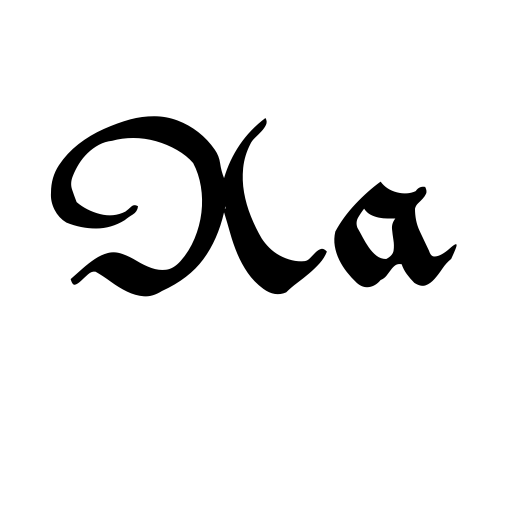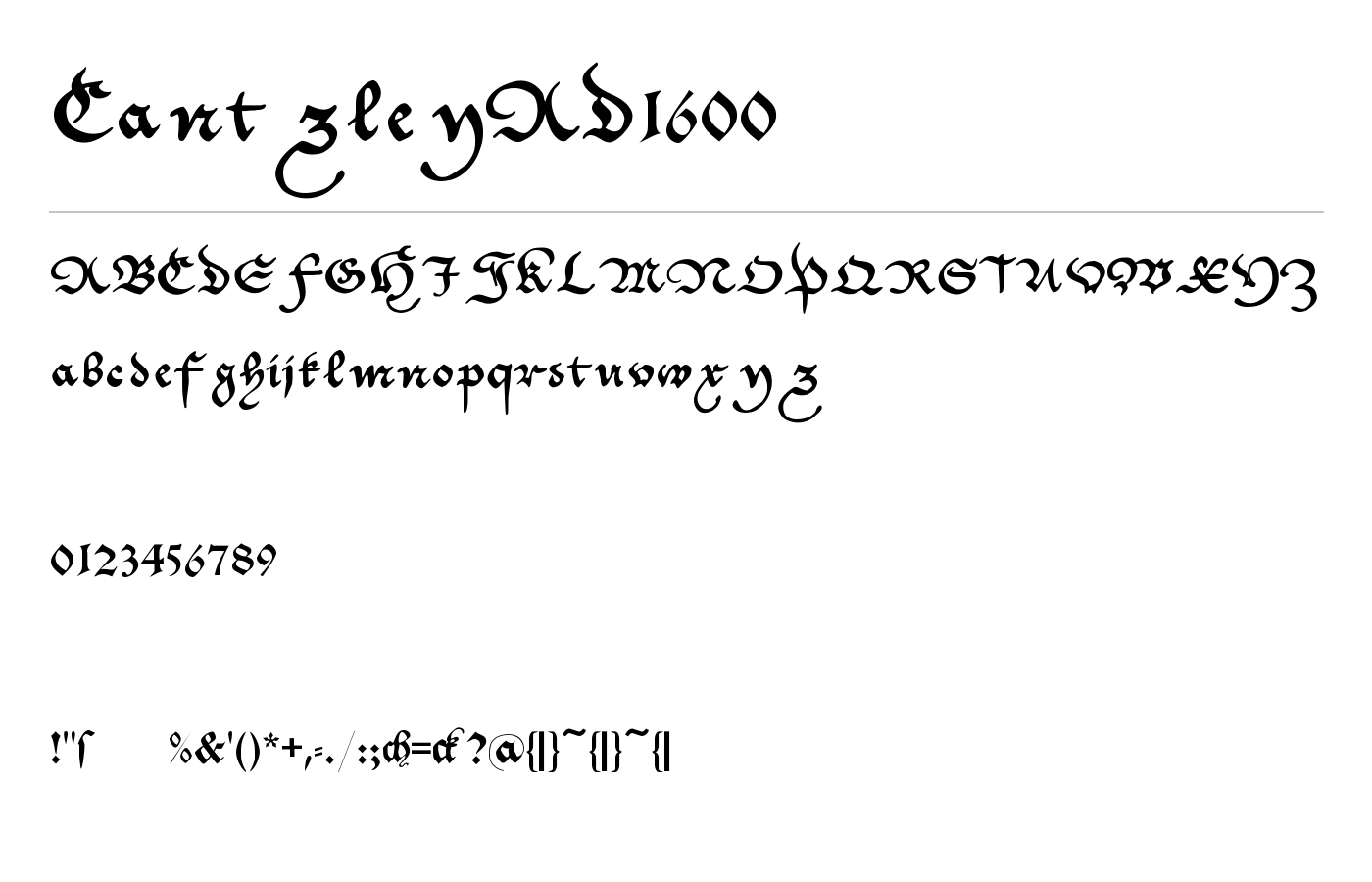
CantzleyAD1600 is a blackletter-style serif font that exudes historical charm and gothic elegance with its sharp, intricate strokes and elaborate letterforms. Its design features a strong contrast between thick and thin lines, decorative serifs, and distinctive character shapes that evoke a medieval manuscript feel, making it perfect for vintage-themed projects, formal invitations, or branding that seeks a dramatic, old-world aesthetic. This font shines best in display uses such as logos, headlines, and editorial titles where its ornate personality can be fully appreciated.
CantzleyAD1600 Font
About CantzleyAD1600 Font